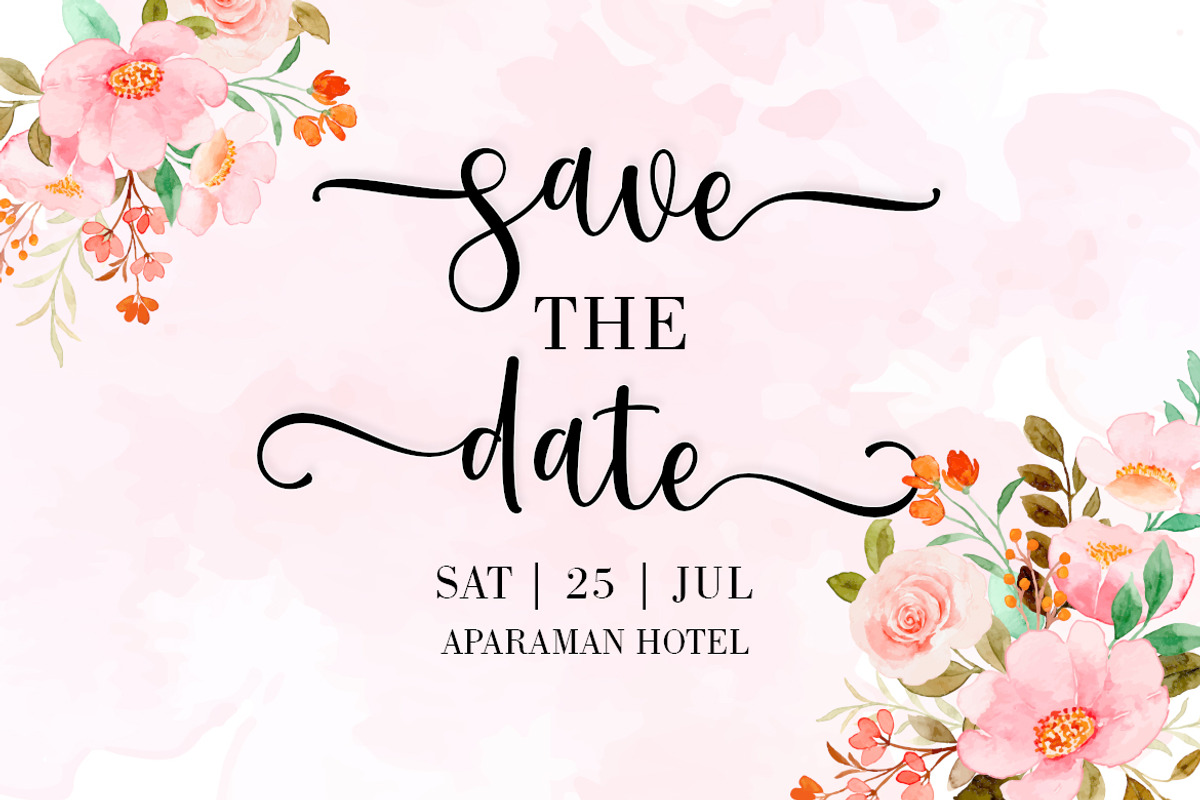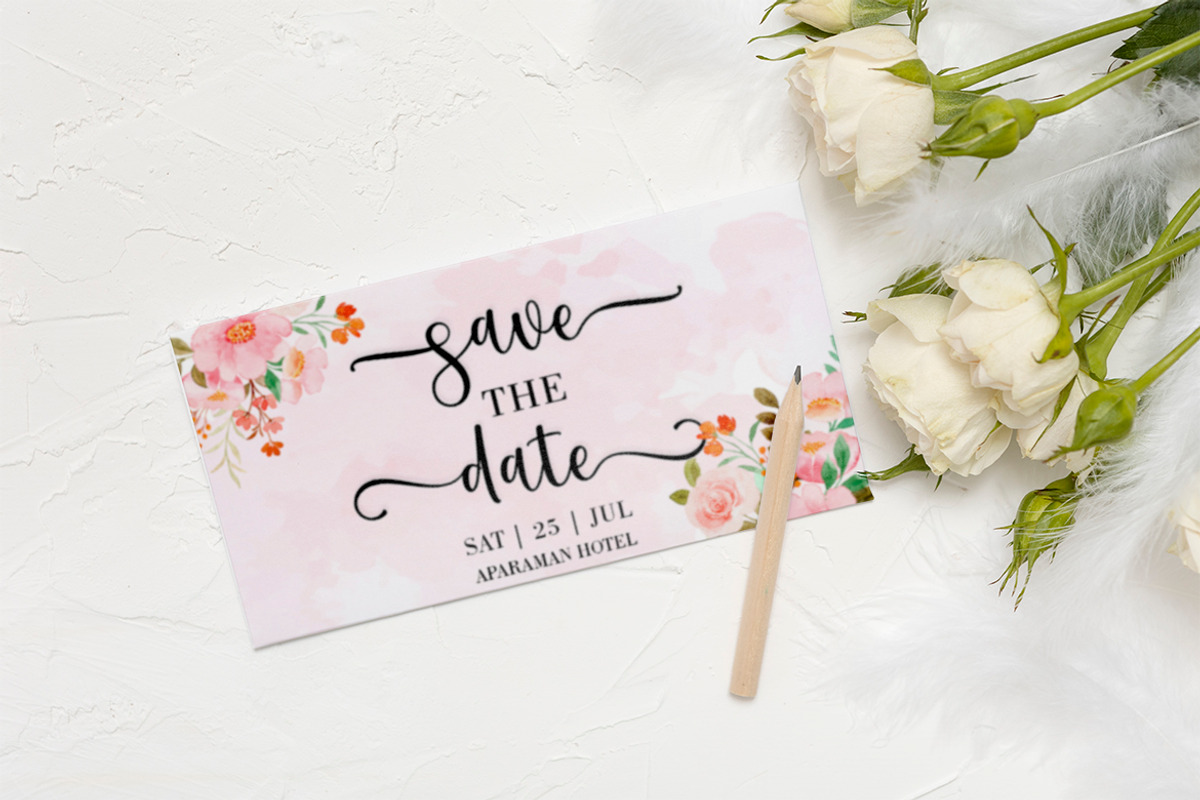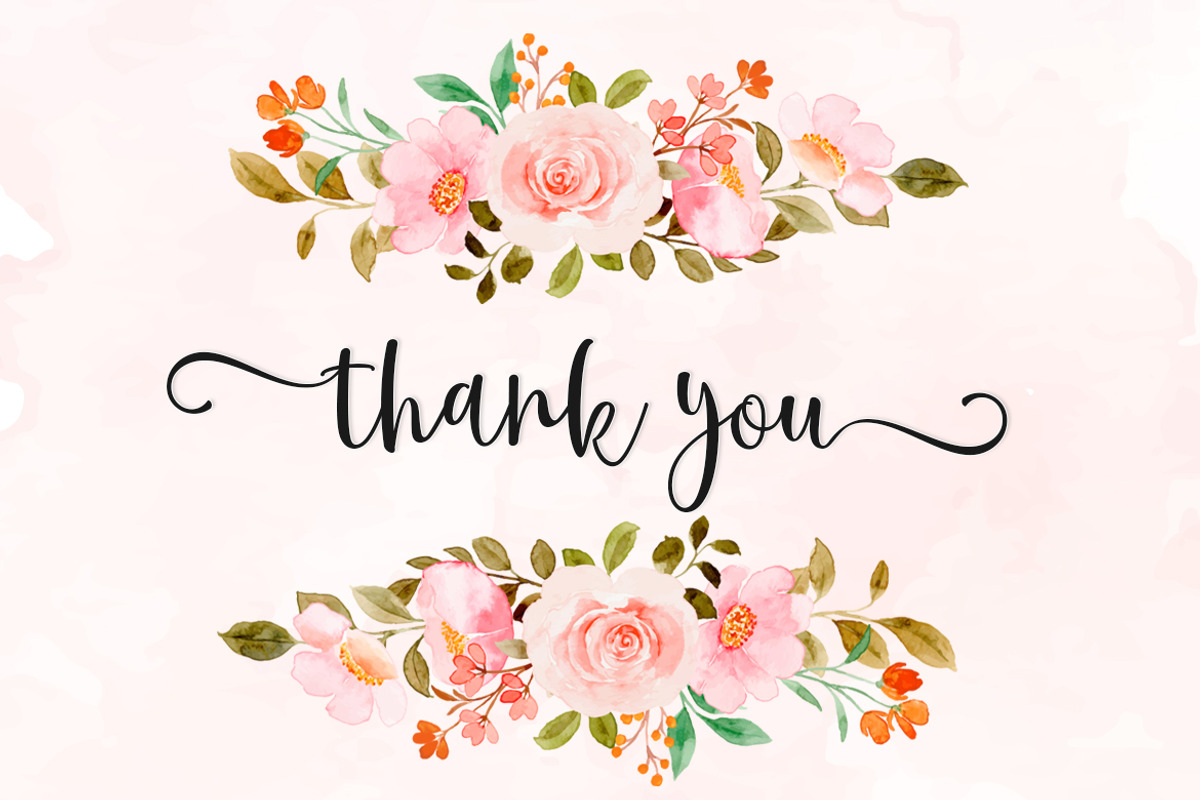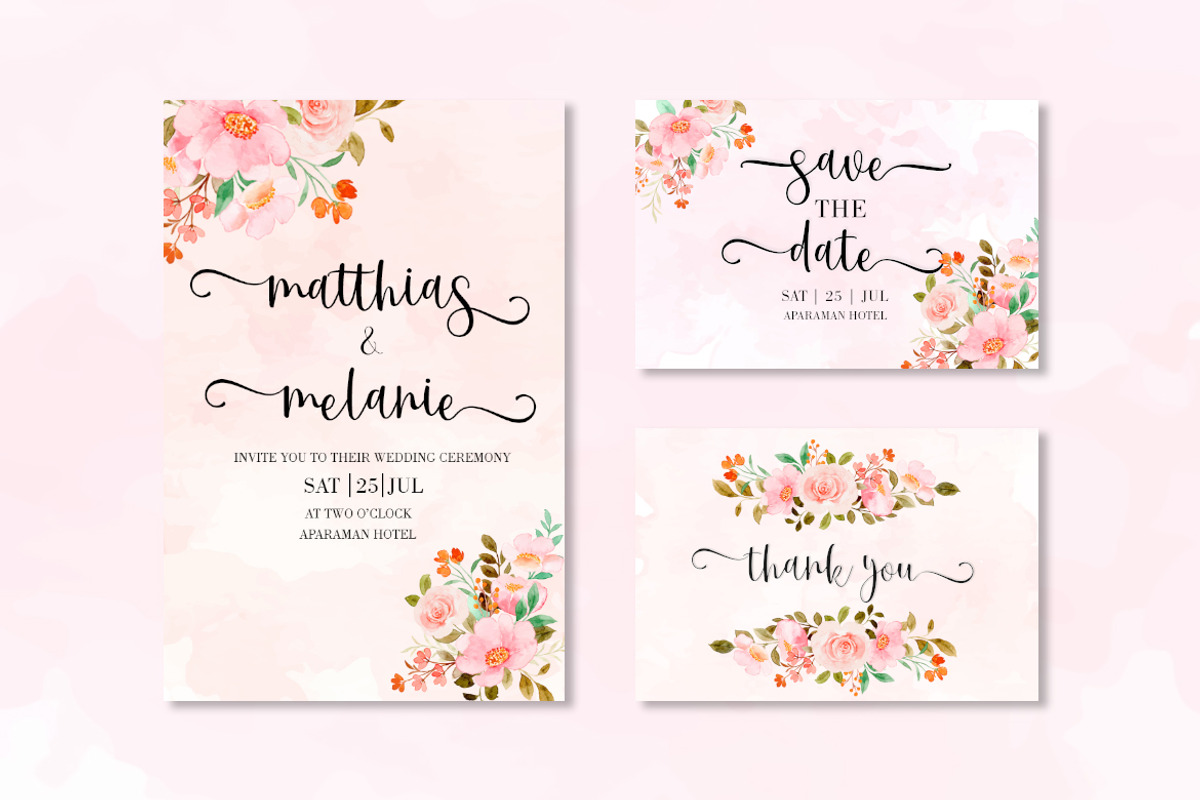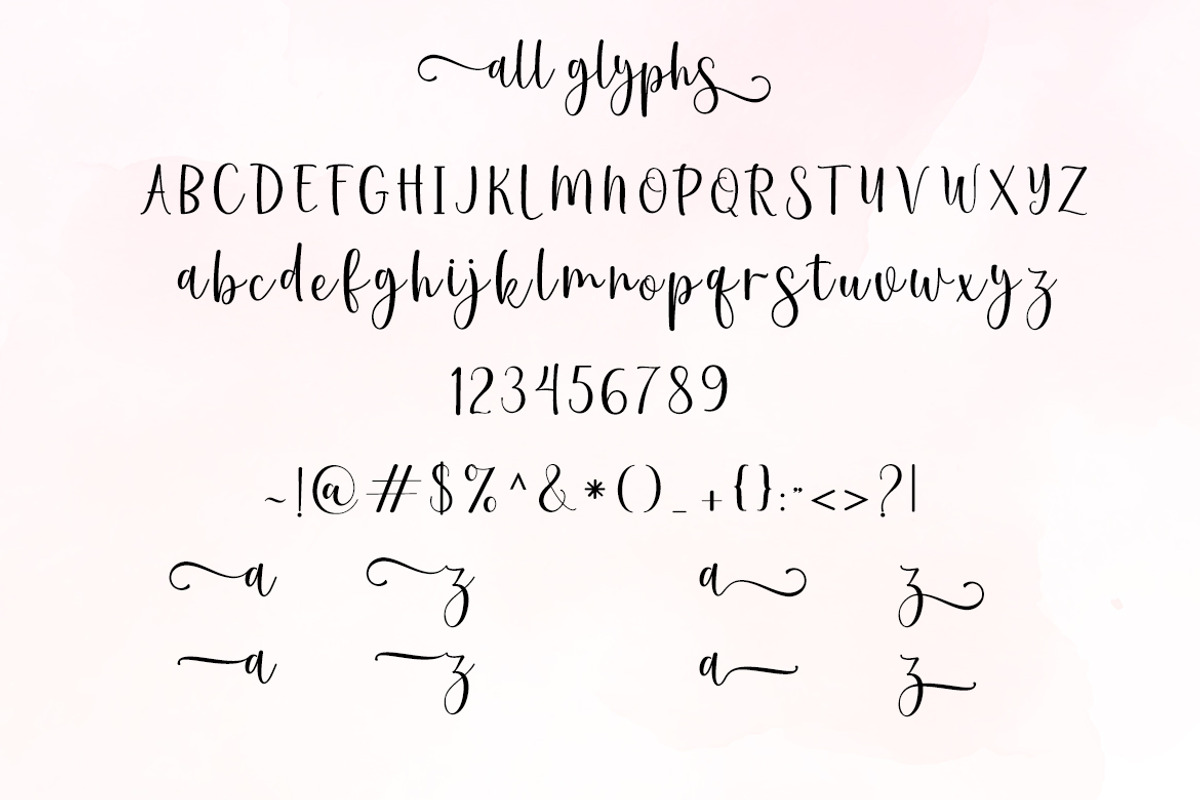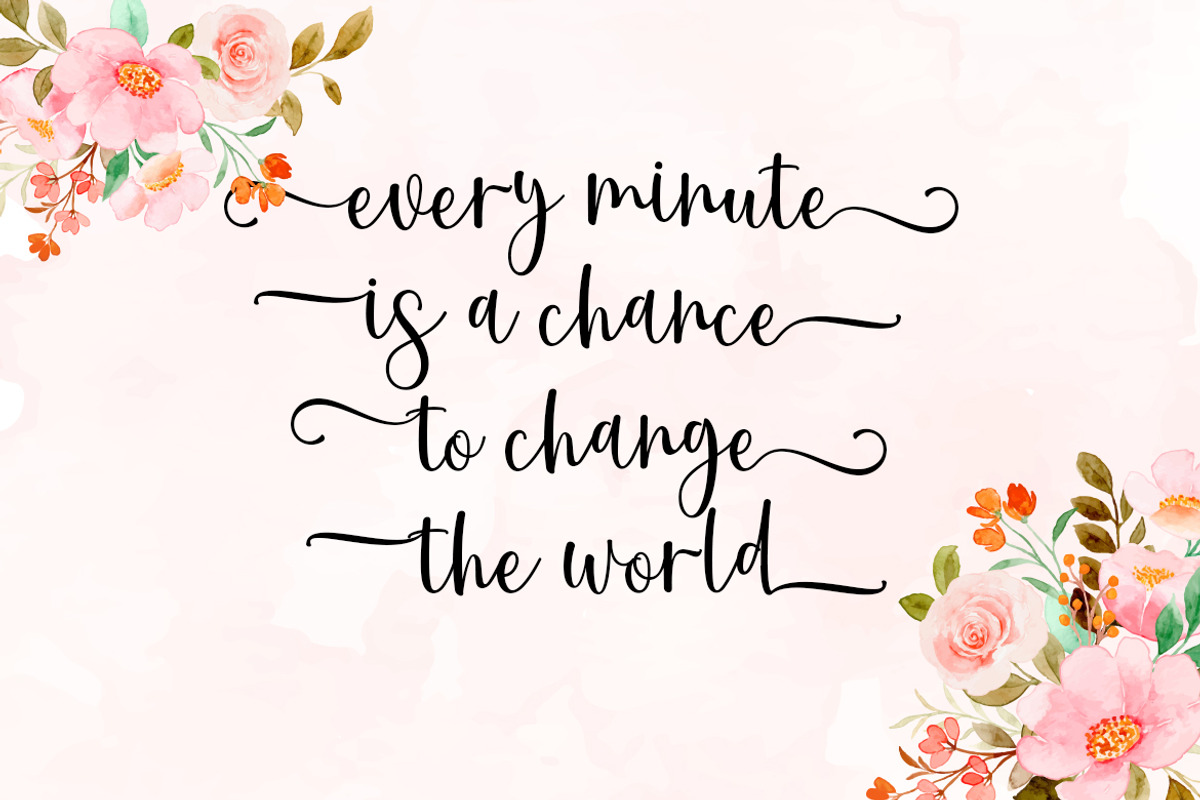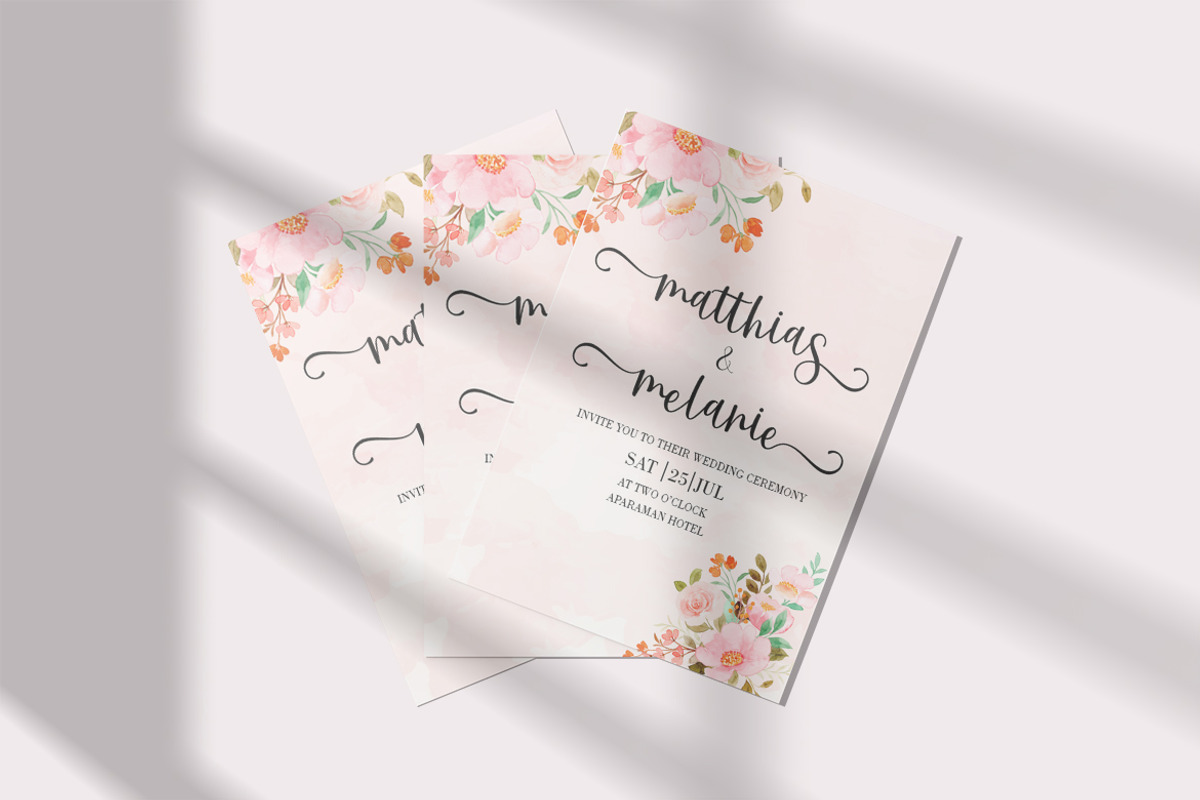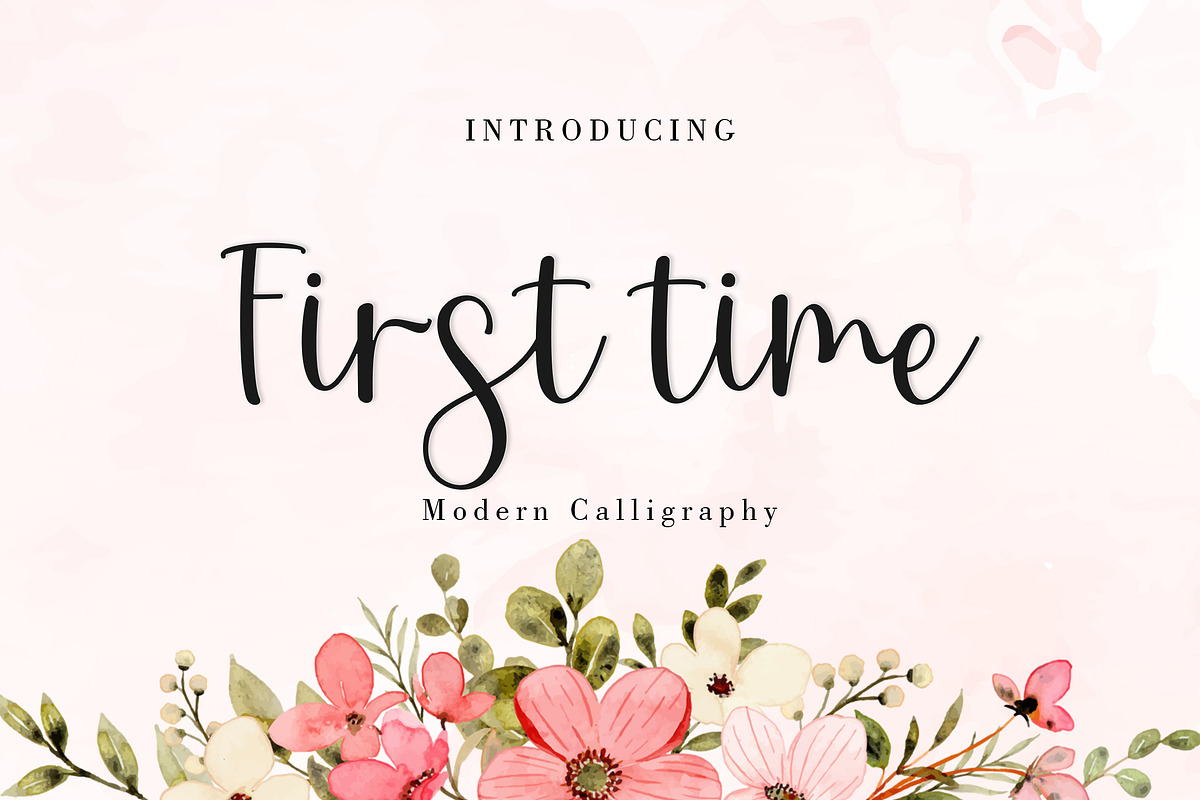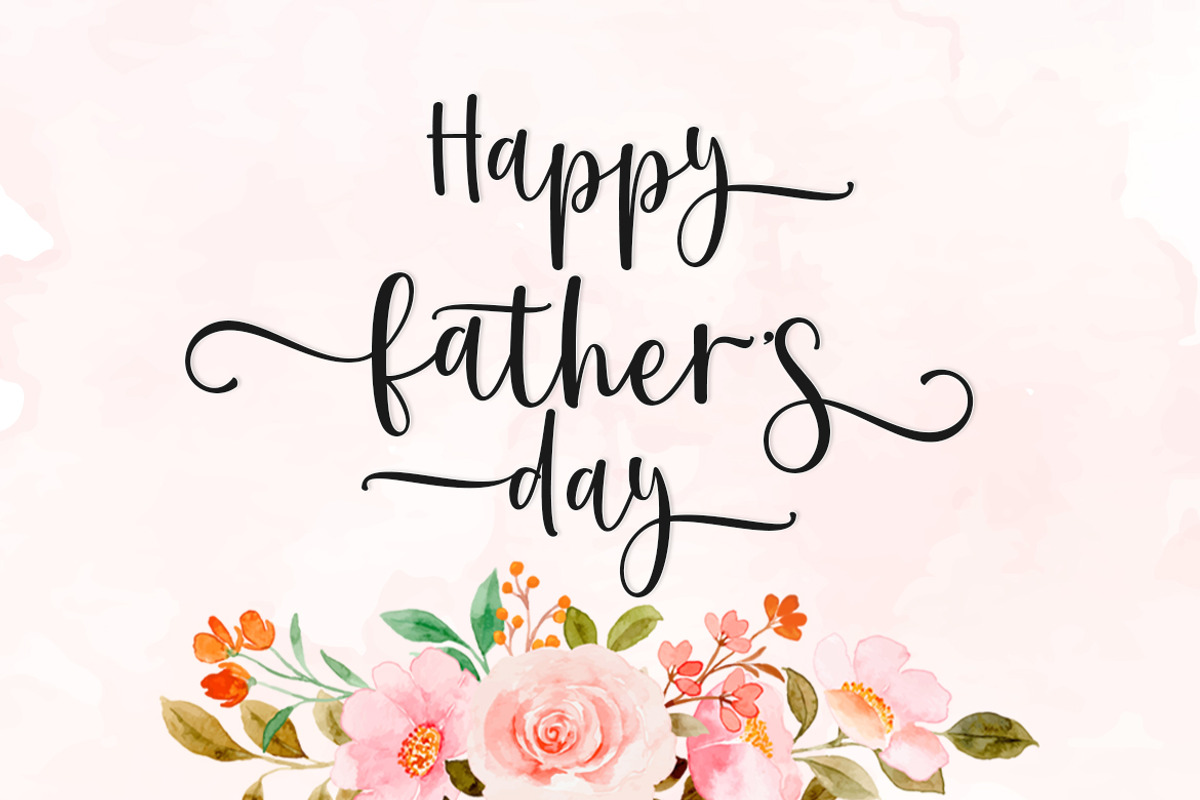
First Time Script
First Time is a handwritten font with a contemporary atmosphere and impeccable form. Not too thin and not too thick, balanced and varied, this font was designed to enhance the beauty of your projects. This font will be ideal for writing wedding invitations, cards, or any other design that may need a romantic, personalized touch!